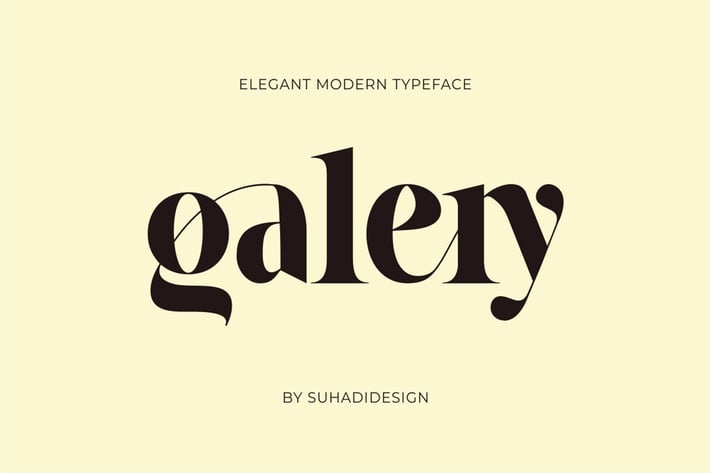
Galery - Elegant Modern Ligature Typeface
Hi ladies and gentlemen! The latest stylish modern font has arrived which is a font that many ladies and gentlemen are looking at. Namely the Galery font. Font Galery is a modern and elegant serif font. With an elegant model with a stylish fastener, it has become a market favorite. We keep this font looking elegant, classy, stylish. Galery Font is a great choice for magazines, design, books, publications, branding, brand names, business cards, social media, classy design, newspaper, branding, beauty and other projects. Font Galery is here to improve the quality of your designs.
Feature:
• Upper case • Lower case • Ligatures • Multilingual Support • Numerical • Punctuation